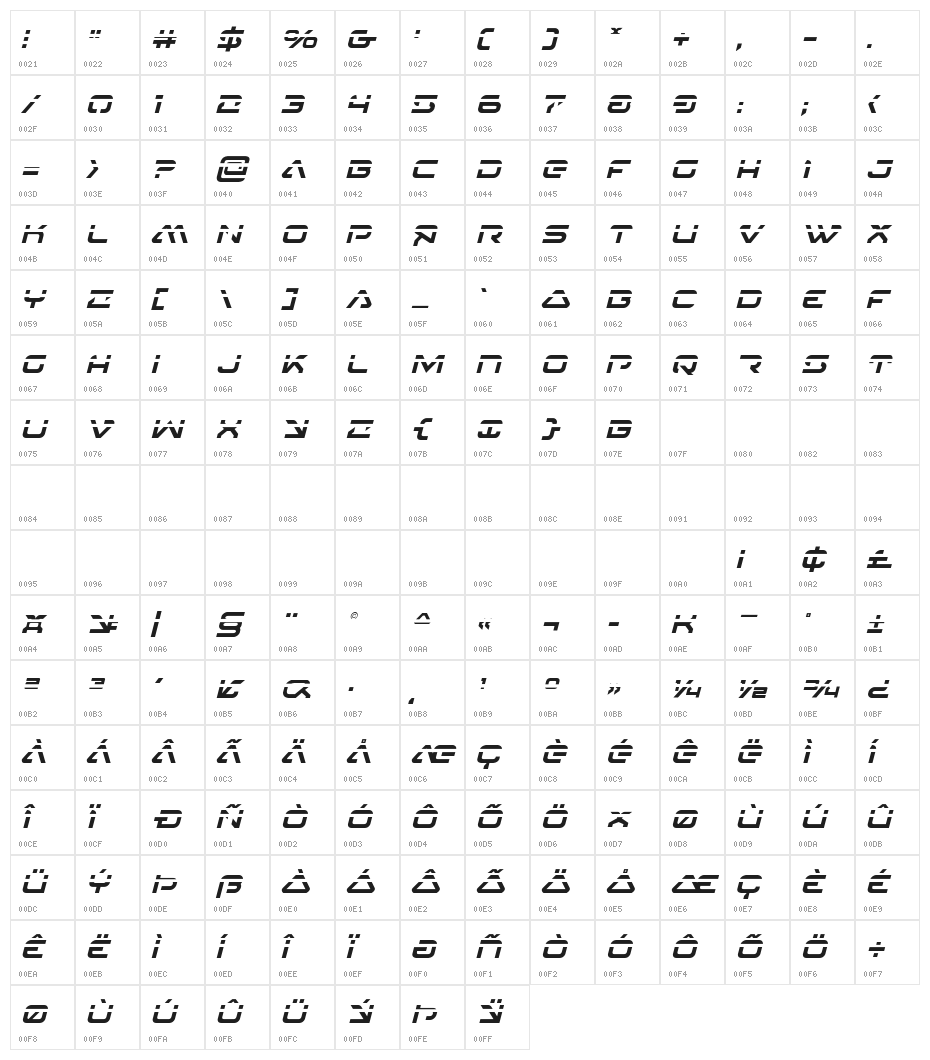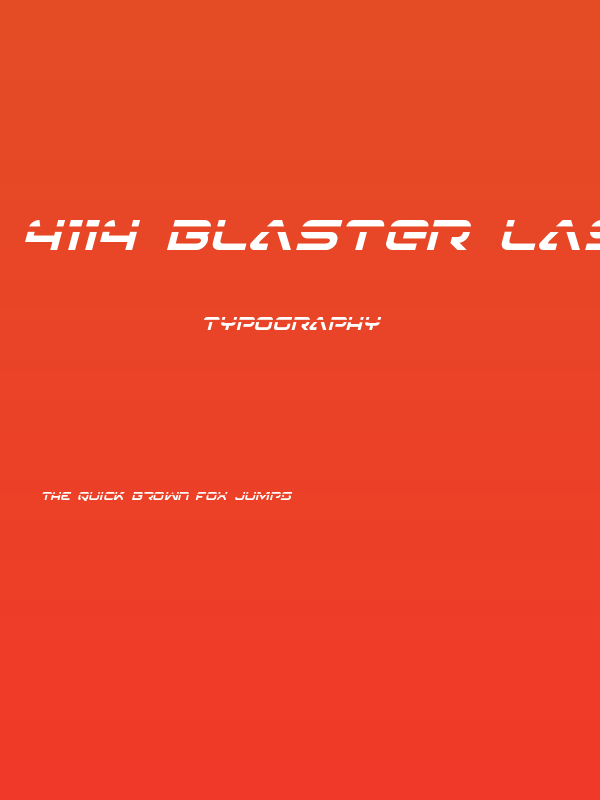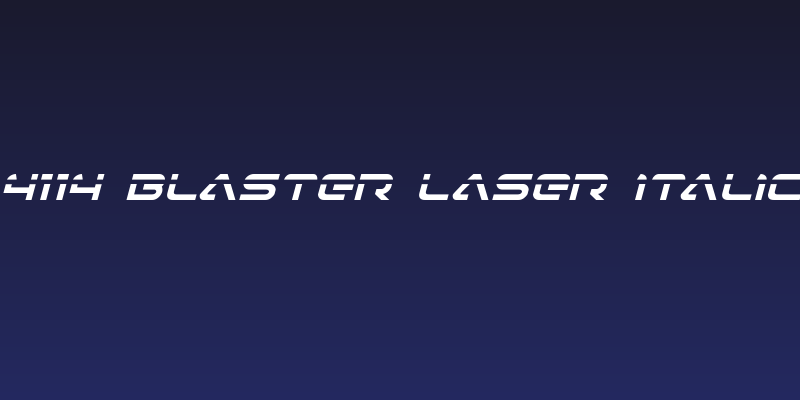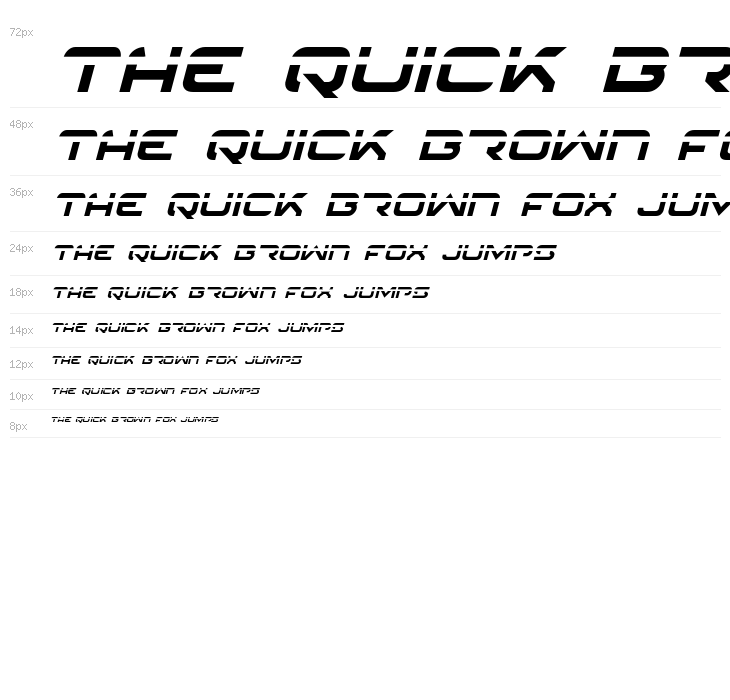
4114 Blaster Laser Italic Font
4114 Blaster Laser Italic Description
This font features a futuristic and dynamic design, characterized by its sharp angles and sleek, italicized form. The letters are constructed with a bold, geometric style, incorporating slanted cuts and streamlined shapes that suggest motion and speed. The uppercase and lowercase letters maintain a consistent design ethos, with a strong emphasis on diagonal lines and angular forms. Numbers and special characters follow the same aesthetic, ensuring a cohesive look across all glyphs. The font's unique style makes it stand out, ideal for projects that require a modern and edgy appearance.
| Proposed Projects | Ideal for sci-fi themed designs, video game graphics, tech branding, and futuristic posters. |